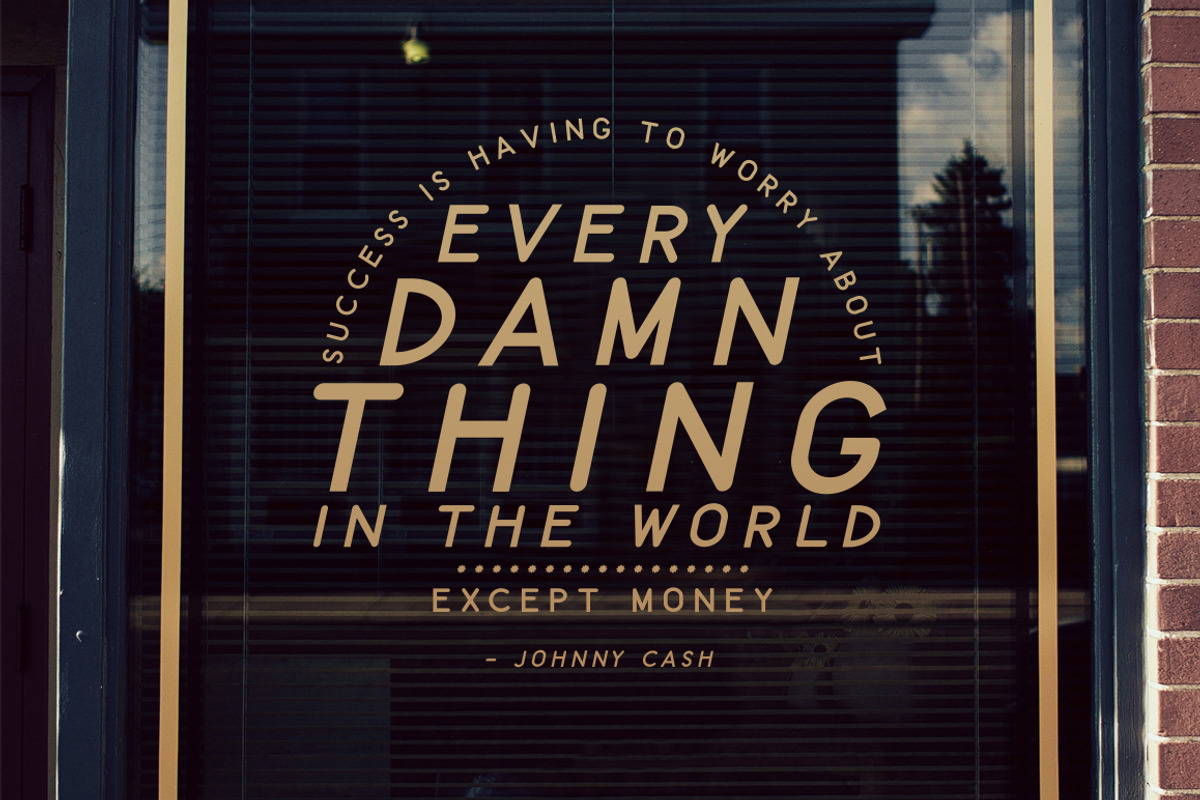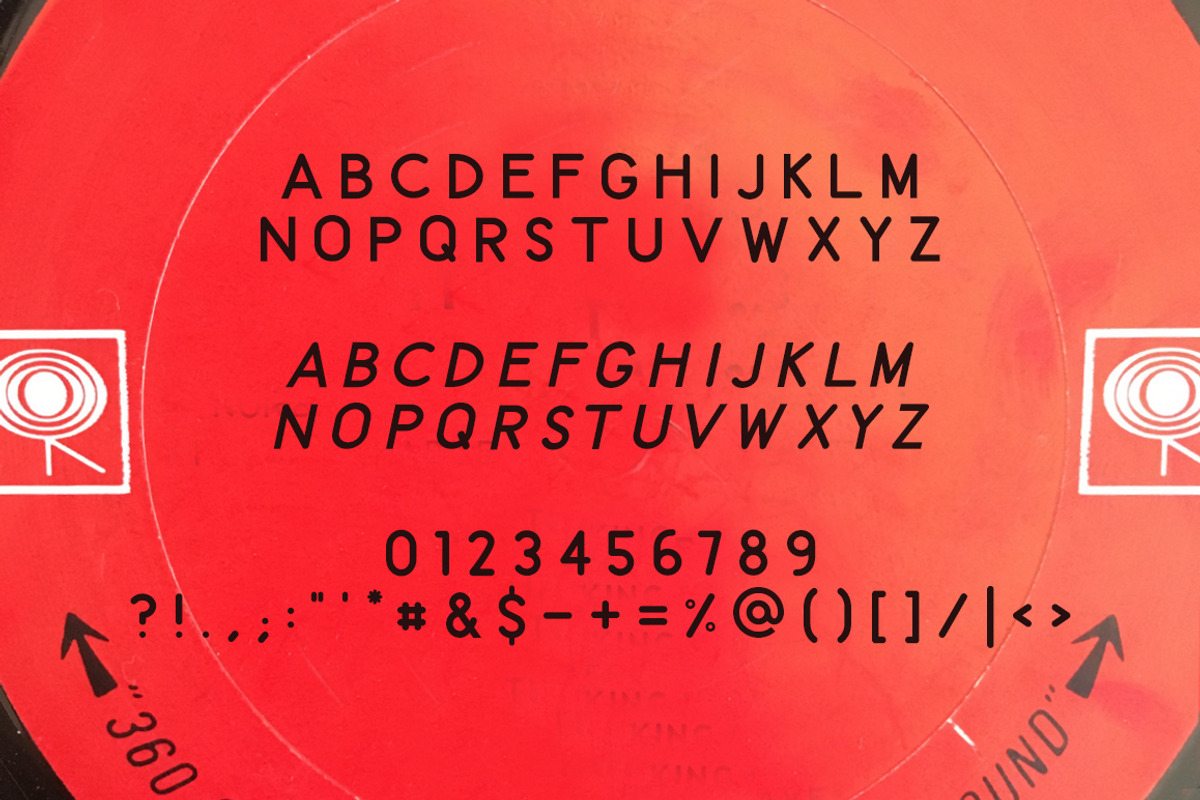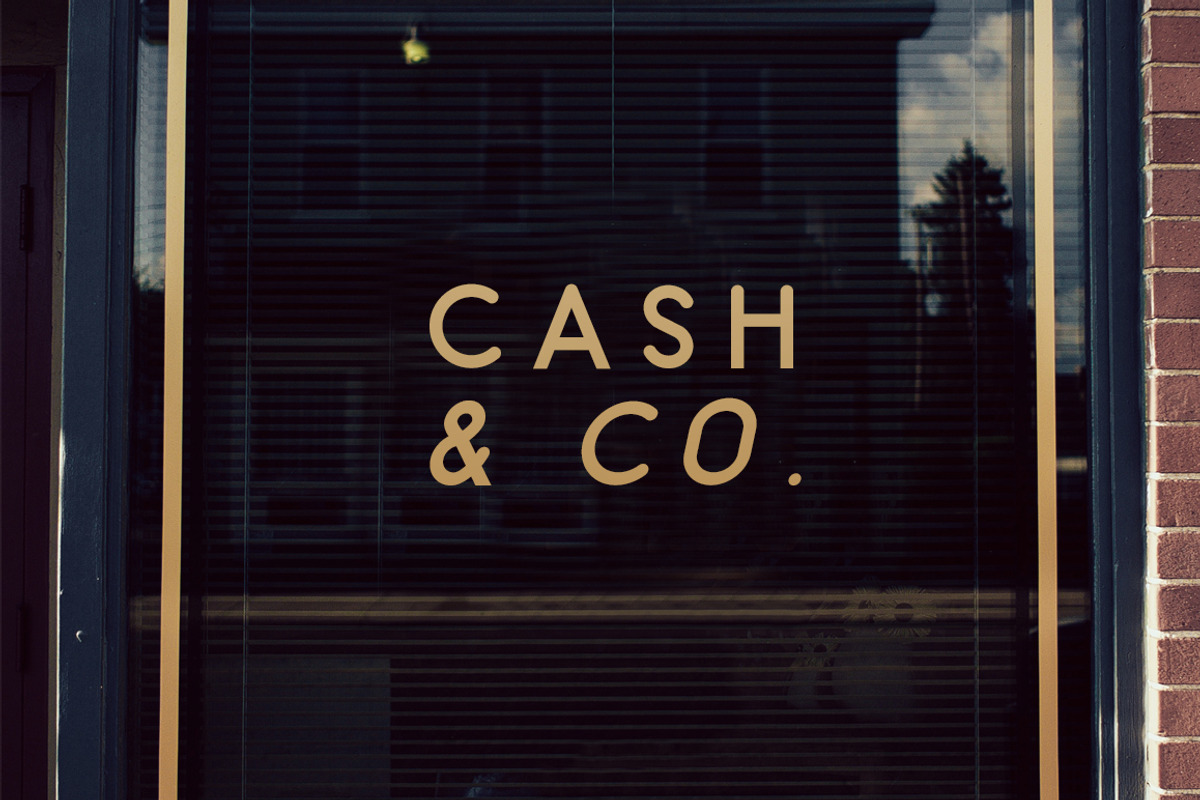
Kingsland is a vintage sans serif all-caps typeface inspired by an old Johnny Cash record sitting in our living room (Cash was born in Kingsland, AR).
It’s rapidly become one of my favorite fonts! Kingsland is an excellent option for typography projects, logos, signage, invitations, branding, websites, and more!
- Capital letters & numbers
- Punctuation
- Non-English characters
- Italic & Regular
Kingsland Sans Serif Font